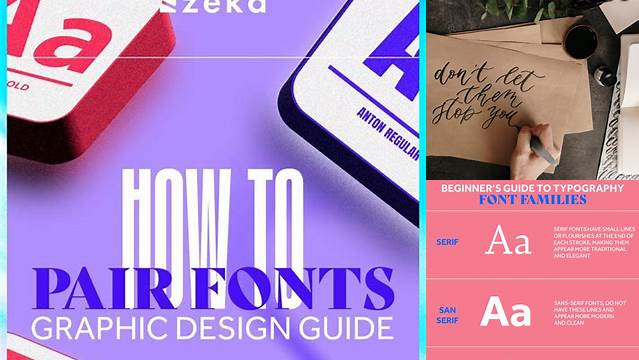
Font Mastery: Graphic Design Guide
Understanding Font Basics in Graphic Design
Okay, guys, let's dive into the world of fonts! Understanding font basics is absolutely crucial for any aspiring graphic designer. Think of fonts as the voice of your design – they communicate tone, personality, and information. Start with the essentials: serif, sans-serif, script, and decorative fonts. Serif fonts, like Times New Roman, have small strokes at the end of their letters and often convey a sense of tradition and formality. Sans-serif fonts, such as Arial or Helvetica, lack these strokes and tend to look modern and clean. Script fonts mimic handwriting and can add elegance or a personal touch. Decorative fonts are the wild cards – they're unique and eye-catching but should be used sparingly. Knowing these basic categories helps you choose the right font to match your design's purpose and audience. Experiment with different font pairings and observe how they interact. Consider the legibility of your chosen font, especially when dealing with body text. A beautiful font is useless if no one can read it! Pay attention to kerning (the spacing between individual letters) and leading (the spacing between lines of text) to ensure optimal readability and visual appeal. Remember, mastering font basics is the foundation upon which all great typography is built, and it’s something you'll continually refine throughout your design journey. So, get out there and start experimenting!
Choosing the Right Font for Your Project
Choosing the right font can really make or break your project, you know? It's not just about picking something that looks pretty; it's about selecting a typeface that aligns with your brand's personality and effectively communicates your message. Think about the overall tone you want to convey. Is it serious and professional, or playful and energetic? A law firm's website, for instance, would likely benefit from a classic serif font, while a children's toy store might opt for a whimsical sans-serif. Consider your target audience as well. What fonts will resonate with them? What fonts do they find easy to read? Legibility is key, especially for body text. A fancy, decorative font might look great in a headline, but it could be a disaster for long paragraphs. When selecting a font, think about its versatility. Does it come in a variety of weights and styles? A font family with multiple options gives you more flexibility and allows you to create visual hierarchy within your design. Don't be afraid to mix and match fonts, but do so with caution. A good rule of thumb is to stick to two or three fonts per project to avoid visual clutter. And always, always test your font choices across different devices and screen sizes to ensure they look good everywhere. In short, choosing the right font requires careful consideration and a deep understanding of your project's goals and audience. It's an art and a science, so keep practicing!
Font Pairing Strategies for Visual Harmony
Alright, let's talk about font pairing – it's like matchmaking for typography! The goal here is to create visual harmony and enhance the overall aesthetic of your design. A common and effective strategy is to pair a serif font with a sans-serif font. The contrast between the two can create a visually appealing and balanced look. For example, you might use a serif font for your headings and a sans-serif font for your body text, or vice versa. Another approach is to pair fonts from the same family but with different weights and styles. This creates a cohesive and sophisticated look. For instance, you could use a bold version of a font for headings and a regular version for body text. When pairing fonts, pay attention to their x-heights (the height of the lowercase letters). Fonts with similar x-heights tend to pair well together. Also, consider the overall mood and tone of your design. Do the fonts complement each other, or do they clash? Experiment with different combinations and see what works best for your project. There are tons of online resources and tools that can help you find complementary fonts. And remember, sometimes the best pairings are unexpected, so don't be afraid to break the rules and try something new! But always, always prioritize legibility and readability. The most beautiful font pairing is useless if no one can read it. So, go forth and create some harmonious font pairings!
Using Font Hierarchy to Guide the Reader
Font hierarchy is your secret weapon for guiding the reader's eye through your design! It's all about using different font sizes, weights, and styles to create a visual hierarchy that highlights the most important information. Think of it like a roadmap for your design. The main heading should be the largest and most prominent font on the page, followed by subheadings, body text, and captions. This creates a clear visual structure that helps readers quickly scan and understand the content. Use font weight to emphasize key words or phrases. Bold or italic text can draw attention to specific elements and make them stand out. But be careful not to overdo it! Too much emphasis can be just as bad as not enough. Consistency is also key. Use the same font styles and sizes for similar elements throughout your design. This creates a sense of visual consistency and makes your design look more polished and professional. When establishing font hierarchy, consider the overall layout of your design. How do the different elements interact with each other? Where do you want the reader's eye to go first? Experiment with different font combinations and arrangements until you find a visual hierarchy that effectively communicates your message. And remember, the goal is to make your design as easy to read and understand as possible. So, use font hierarchy to guide your readers and make your designs more effective!
The Importance of Legibility and Readability
Okay, folks, let's get real about legibility and readability. These two concepts are the cornerstones of good typography. Legibility refers to how easy it is to distinguish individual letters from one another. A highly legible font is one where each character is clear and distinct, even at small sizes. Readability, on the other hand, refers to how easy it is to read and understand large blocks of text. A highly readable font is one that allows the reader to effortlessly scan and comprehend the content. Both legibility and readability are crucial for effective communication. A beautiful font is useless if no one can read it! When choosing a font, consider its x-height, letter spacing, and stroke contrast. Fonts with larger x-heights and wider letter spacing tend to be more legible. Avoid fonts with overly thin strokes or elaborate designs, as these can be difficult to read, especially at small sizes or on low-resolution screens. For body text, stick to classic and well-established fonts like Arial, Helvetica, Times New Roman, or Garamond. These fonts have been designed for optimal readability and have been proven to work well in a variety of contexts. Always test your font choices across different devices and screen sizes to ensure they look good everywhere. And remember, the goal is to make your design as easy to read and understand as possible. So, prioritize legibility and readability, and your designs will be much more effective!
Kerning, Tracking, and Leading: Fine-Tuning Your Typography
Time to get into the nitty-gritty of typography! We're talking about kerning, tracking, and leading – the three musketeers of fine-tuning your text. Kerning refers to the spacing between individual letters. Adjusting the kerning can improve the overall appearance and readability of your text, especially in headlines and logos. Tracking, also known as letter-spacing, refers to the uniform spacing between all letters in a word or block of text. Increasing the tracking can make text look more open and airy, while decreasing it can make it look more dense and compact. Leading, also known as line-height, refers to the vertical spacing between lines of text. Adjusting the leading can improve the readability of your text and prevent lines from feeling too cramped or too spaced out. Mastering kerning, tracking, and leading is essential for creating professional-looking typography. These subtle adjustments can make a big difference in the overall appearance and readability of your design. Most design software programs offer tools for adjusting kerning, tracking, and leading. Experiment with these settings and see how they affect the look and feel of your text. Pay attention to the details, and your typography will shine!
Using Font Weight and Style for Emphasis
Alright, let's talk about how to use font weight and style to add some oomph to your designs! Font weight refers to the thickness of the letters in a font. Common font weights include light, regular, bold, and black. Font style refers to variations within a font family, such as italic, oblique, or condensed. Using font weight and style strategically can help you emphasize key words or phrases, create visual hierarchy, and add interest to your designs. For example, you might use a bold font weight to highlight a headline or subhead, or you might use an italic font style to emphasize a quote or citation. When using font weight and style, be careful not to overdo it! Too much emphasis can be just as bad as not enough. A good rule of thumb is to use font weight and style sparingly and only when you want to draw attention to a specific element. Also, be consistent with your use of font weight and style throughout your design. This creates a sense of visual consistency and makes your design look more polished and professional. Experiment with different font weights and styles to see what works best for your project. And remember, the goal is to use font weight and style to enhance the readability and visual appeal of your design.
Font Licensing and Usage Rights Explained
Okay, folks, let's talk about something super important but often overlooked: font licensing and usage rights. Before you start using a font in your project, it's crucial to understand the terms of its license. Font licenses specify how you are allowed to use the font. Some fonts are free for personal and commercial use, while others require you to purchase a license. Ignoring font licensing can lead to some serious legal trouble, so it's definitely not something to take lightly! There are different types of font licenses. A desktop license typically allows you to use the font on your computer to create designs for print or web. A webfont license allows you to embed the font on your website. An app license allows you to use the font in a mobile app. And an embedded font license allows you to embed the font in a document, such as a PDF. When purchasing a font license, be sure to read the fine print and understand the terms of the agreement. Pay attention to the number of users allowed, the types of projects you can use the font for, and any restrictions on modifying or distributing the font. There are many websites that offer free fonts, but be careful when downloading fonts from unknown sources. These fonts may be of poor quality or may contain malware. It's always best to download fonts from reputable foundries or font marketplaces. So, do your research, understand your rights, and stay out of trouble!
Exploring Different Font Categories: Serif, Sans-Serif, Script, and Decorative
Alright, let's explore the wonderful world of font categories! Knowing the different types of fonts is essential for any graphic designer. The four main categories are serif, sans-serif, script, and decorative. Serif fonts are characterized by the small strokes, or serifs, at the end of their letters. These fonts often convey a sense of tradition, formality, and authority. Examples of serif fonts include Times New Roman, Garamond, and Georgia. Sans-serif fonts, on the other hand, lack these serifs. They tend to look modern, clean, and minimalist. Examples of sans-serif fonts include Arial, Helvetica, and Open Sans. Script fonts mimic handwriting and can add a touch of elegance, personality, or whimsy to your designs. Examples of script fonts include Brush Script, Comic Sans, and Pacifico. Decorative fonts are the wild cards of the font world! They are highly stylized and unique, and they can be used to create a strong visual impact. Examples of decorative fonts include Impact, Stencil, and Bauhaus 93. Each of these font categories brings a unique flavor to the table. When choosing a font, consider the overall tone and message of your design. Do you want to convey a sense of formality or playfulness? Modernity or tradition? The right font can help you communicate your message effectively. Experiment with different font categories and see what works best for your project. And remember, there are no hard and fast rules. The best font is the one that best suits your design needs.
Font Psychology: How Fonts Influence Perception
Did you know that fonts can actually influence how people perceive your message? It's true! Font psychology is a real thing, and it's all about how different typefaces evoke different emotions and associations. For example, serif fonts, with their classic and traditional look, often convey a sense of authority, trustworthiness, and sophistication. They're a great choice for law firms, financial institutions, or any brand that wants to project an image of stability and reliability. Sans-serif fonts, on the other hand, tend to feel more modern, clean, and approachable. They're often used by tech companies, startups, and brands that want to project an image of innovation and simplicity. Script fonts can add a touch of elegance, personality, or whimsy to your designs. They're often used for invitations, greeting cards, or any brand that wants to create a warm and personal connection with its audience. Decorative fonts are the wild cards – they can be used to create a strong visual impact and grab attention. However, they should be used sparingly and with caution, as they can also be distracting or difficult to read. When choosing a font, consider the overall message you want to convey and the emotions you want to evoke. Do you want to project an image of trustworthiness, innovation, or creativity? The right font can help you communicate your message effectively and create a lasting impression on your audience. So, think carefully about your font choices, and use font psychology to your advantage!
Font Combinations to Avoid: Common Pitfalls
Alright, let's talk about some font combinations to avoid! Just like with fashion, some font pairings are simply a no-go. One common pitfall is pairing fonts that are too similar. If two fonts are too alike, they can clash and create a sense of visual disharmony. It's better to choose fonts that have distinct differences in terms of weight, style, or personality. Another mistake is pairing too many fonts. Sticking to two or three fonts per project is generally a good rule of thumb. Using too many fonts can create a sense of visual clutter and make your design look amateurish. Avoid pairing fonts that are too trendy or overused. These fonts can make your design look dated or generic. Instead, opt for classic and timeless fonts that will stand the test of time. Be careful when pairing script fonts with other fonts. Script fonts can be difficult to read, especially in large blocks of text. It's best to use script fonts sparingly and only for headlines or accents. And never, ever pair Comic Sans with anything! It's a design crime. When choosing font combinations, consider the overall tone and message of your design. Do the fonts complement each other, or do they clash? Experiment with different combinations and see what works best for your project. And remember, when in doubt, less is more!
Best Practices for Web Fonts
Okay, let's dive into the world of web fonts! Using custom fonts on your website can greatly enhance its visual appeal and brand identity. However, it's important to follow best practices to ensure optimal performance and readability. One of the most important considerations is font loading time. Large font files can slow down your website and frustrate visitors. To minimize loading time, use web font formats like WOFF and WOFF2, which are optimized for the web. Also, consider using a content delivery network (CDN) to host your web fonts. A CDN can deliver your fonts from servers located around the world, ensuring that your website loads quickly for visitors regardless of their location. When choosing web fonts, pay attention to their legibility and readability on different screen sizes and devices. Test your font choices on various browsers and operating systems to ensure they look good everywhere. Use CSS to specify font fallbacks. Font fallbacks are alternative fonts that will be displayed if the primary font fails to load. This ensures that your website will still be readable even if there are issues with the web fonts. And finally, always optimize your web fonts for performance. Use font subsetting to remove unnecessary characters and glyphs from your font files. This can significantly reduce their size and improve loading time. By following these best practices, you can use web fonts to create a beautiful and engaging website without sacrificing performance.
Font Sizes and Scaling for Different Devices
Alright, let's talk about font sizes and scaling across different devices! In today's multi-screen world, it's crucial to ensure that your fonts look good on everything from tiny smartphones to large desktop monitors. This means using responsive typography techniques to adjust font sizes and scaling based on the screen size. One common approach is to use relative font units like em and rem. Em units are relative to the font size of the parent element, while rem units are relative to the font size of the root element (usually the HTML element). Using em and rem units allows your font sizes to scale proportionally as the screen size changes. Another technique is to use media queries in your CSS. Media queries allow you to apply different styles based on the characteristics of the device, such as screen width, height, and resolution. You can use media queries to adjust font sizes, line heights, and letter spacing for different screen sizes. When choosing font sizes, consider the target audience and the reading distance. Larger font sizes are generally better for smaller screens and for users with visual impairments. Always test your font sizes and scaling on different devices to ensure they look good everywhere. Use a responsive design testing tool or simply resize your browser window to simulate different screen sizes. And remember, the goal is to create a comfortable and readable experience for all users, regardless of the device they are using.
Using OpenType Features for Advanced Typography
Alright, let's unlock the power of OpenType features! OpenType is a modern font format that offers a wide range of advanced typographic features, such as ligatures, swashes, small caps, and old-style numerals. These features can add polish and sophistication to your designs and enhance the overall reading experience. Ligatures are special characters that combine two or more letters into a single glyph. They can improve the appearance of certain letter combinations, such as "fi" or "fl", and prevent them from colliding. Swashes are decorative flourishes that extend from certain letters. They can add a touch of elegance and personality to your designs. Small caps are capital letters that are the same height as lowercase letters. They can be used to create a subtle emphasis or to improve the readability of acronyms and abbreviations. Old-style numerals are numerals that have varying heights and baselines. They can blend in more harmoniously with lowercase text and create a more refined look. To use OpenType features, you need to enable them in your design software. Most design programs offer a typography panel or a character panel where you can access and activate these features. The availability of OpenType features varies depending on the font. Some fonts offer a wide range of features, while others offer only a few. Experiment with different OpenType features to see how they can enhance your designs. And remember, less is often more. Use these features sparingly and only when they add value to your design.
Font Management Tools and Techniques
Okay, let's get organized with font management tools and techniques! If you're a graphic designer, you probably have a vast collection of fonts. Keeping track of all those fonts can be a real challenge, especially when you're working on multiple projects at the same time. That's where font management tools come in handy. Font management tools allow you to organize, activate, and deactivate fonts as needed. They can also help you identify and resolve font conflicts, which can cause problems with your design software. Some popular font management tools include FontBase, RightFont, and Extensis Suitcase Fusion. These tools allow you to create font sets for different projects, preview fonts, and quickly activate and deactivate them. In addition to using font management tools, it's also important to develop good font management habits. Organize your fonts into folders based on categories or projects. Use consistent naming conventions for your font files. And regularly back up your font collection to prevent data loss. When working on a project, only activate the fonts that you need. Deactivating unused fonts can improve the performance of your design software and reduce the risk of font conflicts. And finally, always keep your font management tool up to date. Updates often include bug fixes and performance improvements. By following these font management techniques, you can keep your font collection organized, prevent font conflicts, and improve your design workflow.
Creating Custom Fonts: An Introduction
Alright, let's get creative and explore the world of creating custom fonts! Designing your own fonts can be a rewarding experience and a great way to add a unique touch to your designs. While it may seem like a daunting task, there are many tools and resources available to help you get started. One option is to use a font design software like Glyphs, FontLab Studio, or RoboFont. These programs provide a comprehensive set of tools for creating and editing fonts, including drawing tools, kerning tools, and OpenType feature support. Another option is to use a web-based font editor like BirdFont or FontStruct. These tools are simpler to use and don't require you to install any software on your computer. They are a good option for beginners who want to experiment with font design. When creating custom fonts, it's important to start with a clear concept and a well-defined design brief. What is the purpose of your font? What style or personality do you want to convey? Sketch out your ideas on paper before you start designing on the computer. Pay attention to the details, such as the x-height, ascenders, and descenders. These elements contribute to the overall legibility and readability of your font. And finally, don't be afraid to experiment and break the rules. Font design is a creative process, so have fun and let your imagination run wild!
Color and Typography: Creating Visual Harmony
Alright, let's talk about the dynamic duo of design: color and typography! The colors you choose and the fonts you use should work together harmoniously to create a cohesive and visually appealing design. Color can influence how people perceive your fonts and vice versa. For example, a bright and cheerful color palette might pair well with a playful and whimsical font, while a dark and sophisticated color palette might pair better with a classic and elegant font. When choosing color and typography, consider the overall message you want to convey and the emotions you want to evoke. Do you want to create a sense of excitement, trust, or sophistication? The right color and font combinations can help you communicate your message effectively. Experiment with different color and font pairings to see what works best for your project. Use a color palette generator like Adobe Color or Coolors to find harmonious color combinations. And don't be afraid to break the rules and try something unexpected. The best color and font combinations are often the ones that you wouldn't expect. Just remember to prioritize legibility and readability. The most beautiful color and font combination is useless if no one can read it.
Typography Trends: Staying Up-to-Date
Alright, let's talk about typography trends! Just like fashion, typography is constantly evolving. Staying up-to-date with the latest trends can help you keep your designs fresh and relevant. However, it's important to remember that trends come and go. Don't blindly follow every trend that comes along. Instead, focus on incorporating trends that align with your brand and your design goals. Some current typography trends include: variable fonts, which allow for greater flexibility and customization; bold and oversized typography, which can create a strong visual impact; and retro and vintage-inspired fonts, which can add a touch of nostalgia to your designs. When incorporating typography trends into your designs, be mindful of legibility and readability. Trends should enhance your designs, not detract from them. And always consider your target audience. What fonts will resonate with them? What fonts do they find easy to read? Ultimately, the best typography is the typography that effectively communicates your message and achieves your design goals. So, stay informed, experiment with new trends, and always prioritize your audience.
Common Font Mistakes and How to Avoid Them
Alright, let's talk about some common font mistakes and how to avoid them! Even experienced designers can make mistakes when it comes to typography. But by being aware of these common pitfalls, you can avoid them and create more effective and professional-looking designs. One common mistake is using too many fonts. Sticking to two or three fonts per project is generally a good rule of thumb. Using too many fonts can create a sense of visual clutter and make your design look amateurish. Another mistake is choosing fonts that are too similar. If two fonts are too alike, they can clash and create a sense of visual disharmony. It's better to choose fonts that have distinct differences in terms of weight, style, or personality. Using fonts that are difficult to read is another common mistake. Prioritize legibility and readability, especially for body text. Avoid fonts with overly thin strokes or elaborate designs. Neglecting kerning, tracking, and leading is another common mistake. These subtle adjustments can make a big difference in the overall appearance and readability of your text. Not understanding font licensing is also a common mistake. Always read the terms of the font license before using a font in your project. And finally, using default fonts without customization is a mistake. Take the time to adjust the font size, weight, and style to fit your design needs. By avoiding these common font mistakes, you can create more effective and professional-looking designs.
The Future of Typography in Graphic Design
Alright, let's gaze into the crystal ball and talk about the future of typography in graphic design! Typography is a constantly evolving field, and there are many exciting developments on the horizon. One major trend is the rise of variable fonts. Variable fonts allow for greater flexibility and customization, enabling designers to create a wide range of typographic styles from a single font file. This can significantly reduce file sizes and improve website performance. Another trend is the increasing use of artificial intelligence (AI) in typography. AI-powered tools can help designers choose the right fonts, create harmonious font pairings, and optimize typography for different devices and screen sizes. The metaverse and augmented reality (AR) are also likely to have a significant impact on typography in the future. Designers will need to create fonts that are legible and readable in immersive environments. And finally, the focus on accessibility will continue to grow. Designers will need to ensure that their typography is accessible to users with visual impairments. The future of typography is bright and exciting. By staying informed and embracing new technologies, designers can continue to push the boundaries of typography and create innovative and engaging designs.
Font Accessibility: Designing for Everyone
Alright, let's talk about font accessibility! Designing for everyone means ensuring that your typography is legible and readable for users with visual impairments. There are several factors to consider when designing for accessibility. One important factor is font size. Use a font size that is large enough to be easily read by users with low vision. Avoid using overly small or decorative fonts. Another important factor is contrast. Use a high contrast between the text and the background. Black text on a white background is generally the most accessible option. Also, consider using font families that are designed for accessibility. These fonts often have larger x-heights and wider letter spacing, which can improve legibility. Avoid using fonts with overly thin strokes or elaborate designs. Provide alternative text for images of text. This allows screen readers to describe the image to users with visual impairments. And finally, allow users to customize the font size and color. This gives users more control over their reading experience. By following these font accessibility guidelines, you can create designs that are inclusive and accessible to everyone.
Typography for Branding: Building a Visual Identity
Alright, let's talk about typography for branding! Your brand's typography is a crucial element of its visual identity. The fonts you choose should reflect your brand's personality, values, and target audience. When choosing fonts for your brand, consider the overall message you want to convey. Do you want to project an image of trustworthiness, innovation, or creativity? The right fonts can help you communicate your message effectively. Be consistent with your typography across all of your marketing materials, including your website, logo, business cards, and social media profiles. This helps to create a strong and recognizable brand identity. Choose fonts that are legible and readable in both print and digital formats. Test your font choices on different devices and screen sizes to ensure they look good everywhere. Consider using a custom font for your brand. This can help you stand out from the competition and create a unique and memorable brand identity. And finally, don't be afraid to experiment with different font combinations. Just be sure to choose fonts that complement each other and create a harmonious visual effect. Typography for branding is an important investment that can pay off in the long run.
Creating Effective Call-to-Actions with Typography
Alright, let's talk about creating effective call-to-actions with typography! Your call-to-actions (CTAs) are the most important elements of your design. They are the buttons or links that you want users to click on. Therefore, it's crucial to make them stand out and be as compelling as possible. Typography plays a key role in creating effective CTAs. Use a font that is legible and easy to read. Choose a font size that is large enough to be easily seen. Use a font weight that is bold or semi-bold to make the CTA stand out. Use a contrasting color to make the CTA visually prominent. Consider using a directional cue, such as an arrow, to point users towards the CTA. Use strong and action-oriented language in your CTA text. For example, "Shop Now," "Sign Up Today," or "Get Started." Test different CTA designs to see what works best for your audience. Use A/B testing to compare different font choices, colors, and text. And finally, make sure your CTAs are mobile-friendly. They should be easy to tap on a touchscreen device. By following these tips, you can use typography to create effective call-to-actions that drive conversions and achieve your business goals.
Typography in Logo Design: Making a Lasting Impression
Alright, let's talk about typography in logo design! Your logo is the face of your brand, and typography is a crucial element of your logo design. The fonts you choose should reflect your brand's personality, values, and target audience. When choosing fonts for your logo, consider the overall message you want to convey. Do you want to project an image of trustworthiness, innovation, or creativity? The right fonts can help you communicate your message effectively. Keep it simple. Avoid using too many fonts in your logo. Stick to one or two fonts at most. Choose fonts that are legible and memorable. Your logo should be easily recognizable, even at small sizes. Consider using a custom font for your logo. This can help you stand out from the competition and create a unique and memorable brand identity. Pay attention to kerning, tracking, and leading. These subtle adjustments can make a big difference in the overall appearance of your logo. Test your logo on different backgrounds and in different sizes to ensure it looks good everywhere. And finally, get feedback from others. Ask your friends, family, and colleagues what they think of your logo. By following these tips, you can use typography to create a logo that makes a lasting impression.
Typography for Print vs. Digital: Key Differences
Alright, let's talk about the key differences between typography for print vs. digital! While the principles of good typography apply to both print and digital media, there are some important differences to consider. In print, you have more control over the final output. You can choose from a wider range of fonts, and you can fine-tune the kerning, tracking, and leading to perfection. However, you are limited by the physical properties of the paper and the printing process. In digital media, you have less control over the final output. The fonts that are available to you may be limited by the operating system or the web browser. And the appearance of your typography may vary depending on the device and screen resolution. However, you have more flexibility in terms of font sizes, colors, and effects. When designing for print, choose fonts that are well-suited for print media. Serif fonts are generally a good choice for body text in print, as they tend to be more legible than sans-serif fonts at small sizes. When designing for digital media, choose fonts that are optimized for the web. Web fonts are designed to load quickly and render well on different screen sizes and devices. Always test your typography on different devices and screen sizes to ensure it looks good everywhere. And finally, consider the user experience. Make sure your typography is legible, readable, and accessible to all users. By understanding the key differences between typography for print and digital, you can create designs that are effective and visually appealing in both mediums.
Mastering Typography: Resources and Further Learning
Alright, you want to become a typography master? That's awesome! There are tons of resources and further learning opportunities out there to help you hone your skills. Online courses are a great option. Platforms like Skillshare, Coursera, and Udemy offer courses on typography for all skill levels. These courses often include video lectures, hands-on exercises, and feedback from instructors. Books are another valuable resource. "The Elements of Typographic Style" by Robert Bringhurst is a classic and comprehensive guide to typography. Other recommended books include "Thinking with Type" by Ellen Lupton and "Typography Workbook" by Timothy Samara. Websites and blogs can also provide valuable insights and inspiration. Sites like Typewolf, I Love Typography, and Fonts in Use showcase excellent examples of typography and offer tips and tutorials. Typography communities and forums are a great place to connect with other designers and learn from their experiences. Dribbble, Behance, and Reddit's r/typography are all active communities where you can share your work and get feedback. And finally, practice, practice! The best way to improve your typography skills is to experiment with different fonts, styles, and techniques. Create your own typography projects and seek feedback from others. By taking advantage of these resources and further learning opportunities, you can master typography and create stunning and effective designs. Remember, it's a journey, so enjoy the process!